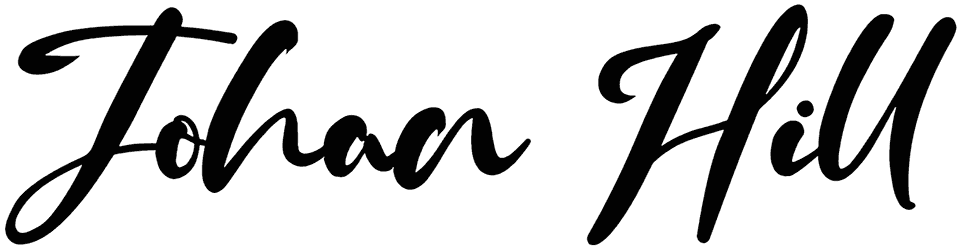
Johan Hill Font
If you would rather shout the quality of your artwork than whisper it, a wonderful handwritten font such as Johan Hill would fulfill your ambition. Its elongated characters and crooked style lead to a sense of personalization, vivacity, and dreaminess. Needless to say, it would perfectly work for magazines, merchandise, branding, or social media posts.